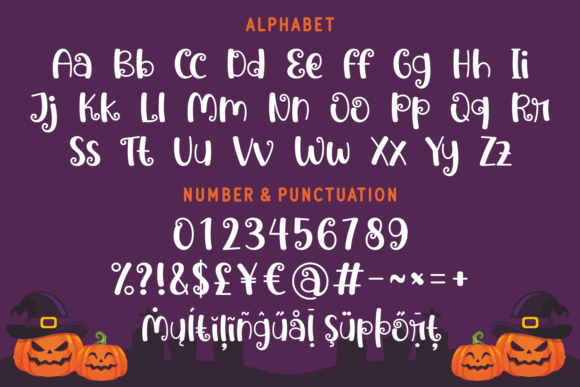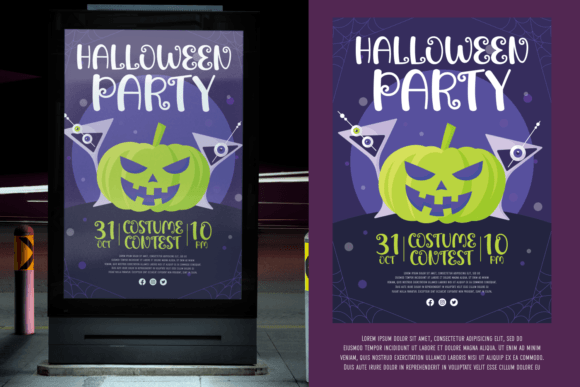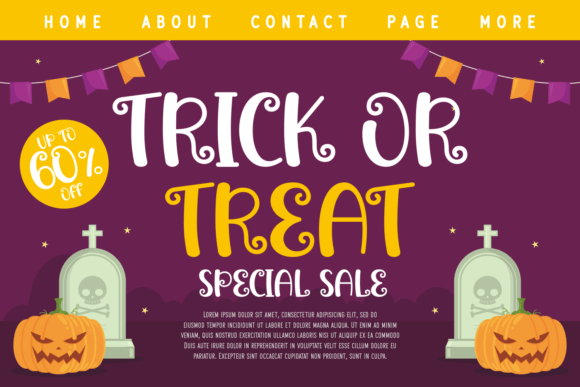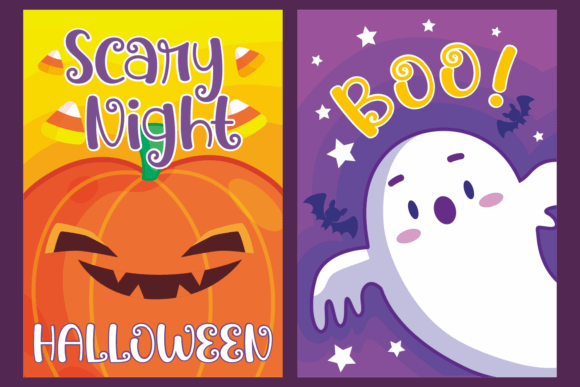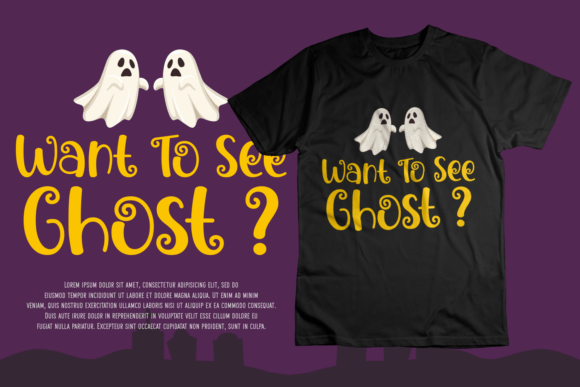
About Halloween Curly Creepy Font
Halloween Curly Creepy is a fun and playful handwritten font suited for creations that need lively typography! Try it on Halloween posters, party invitations, banners, branding, or more.